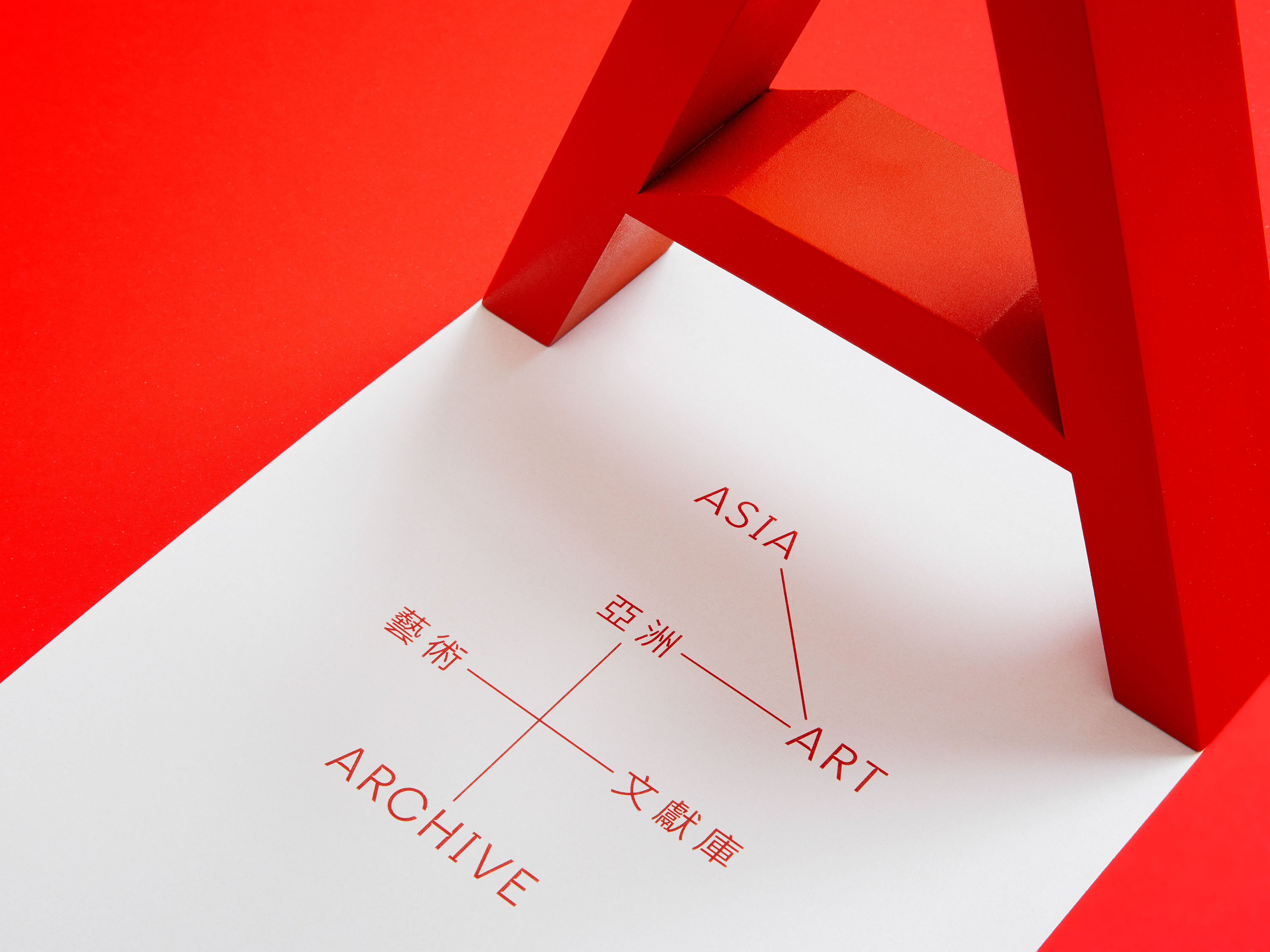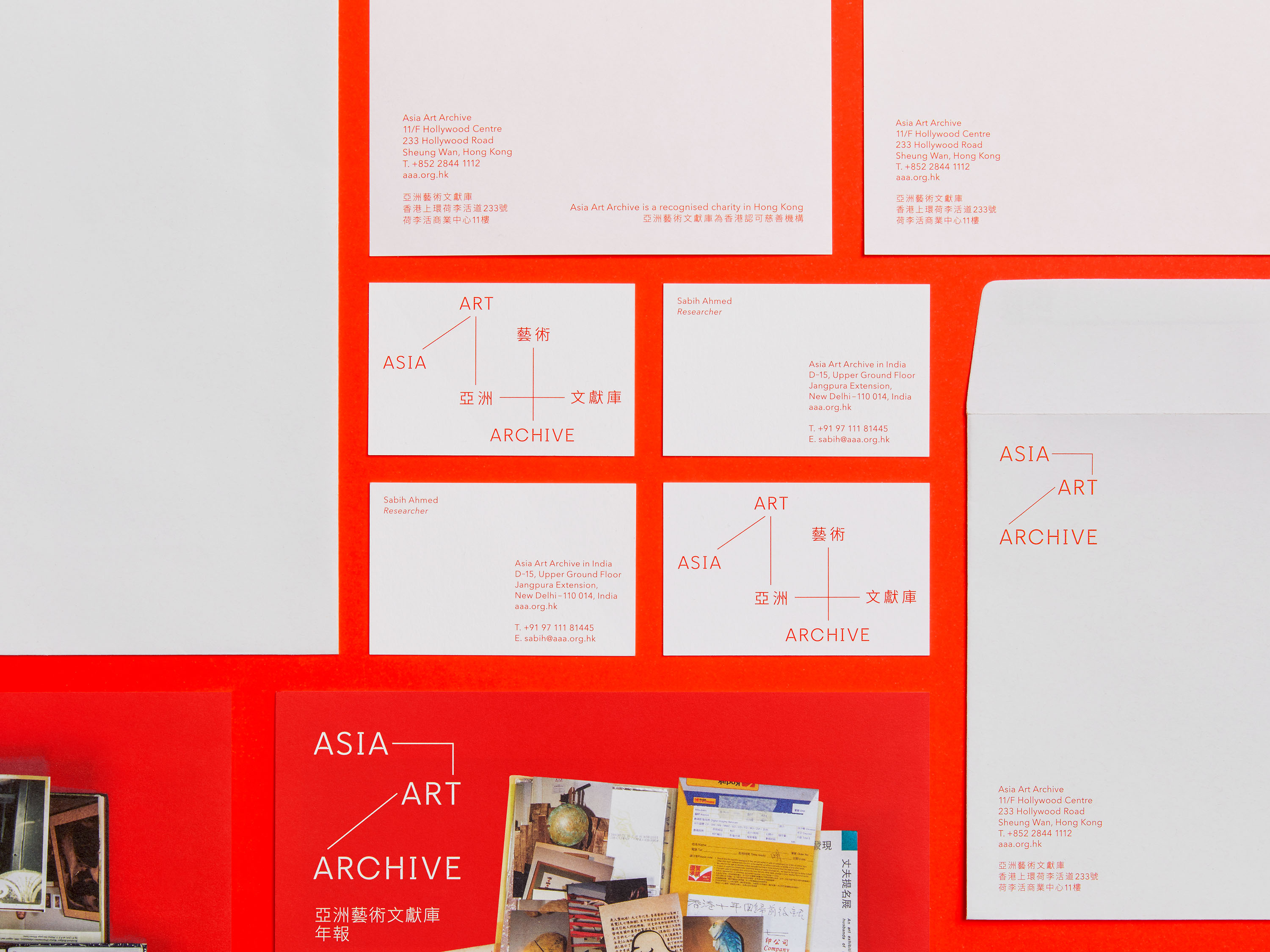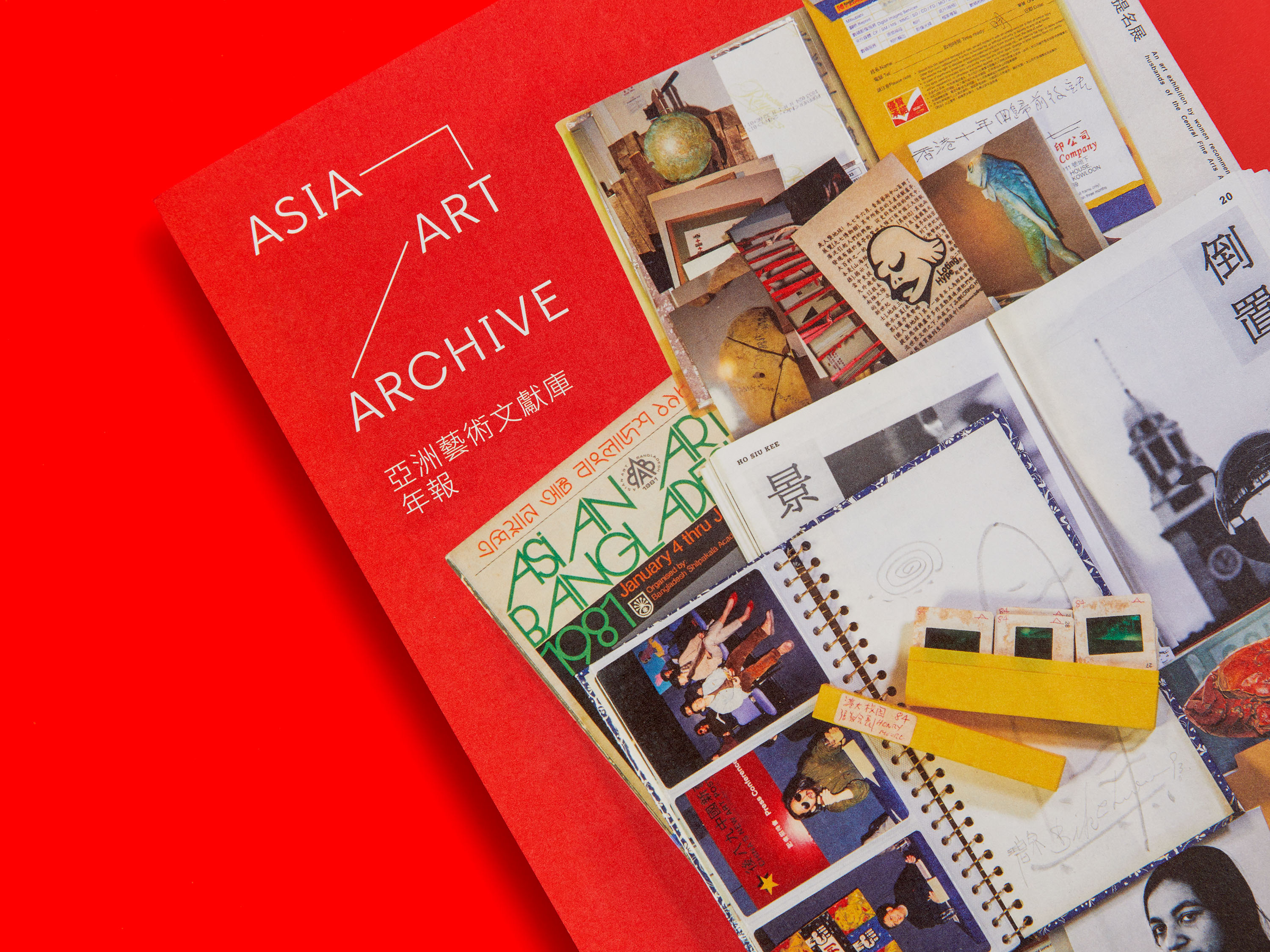
Asia Art Archive Regular
Dispossession of the hand in favour of a trajectory for the eye.
Asia Art Archive Regular Uppercase
Asia Art Archive Regular Latin
Asia Art Archive Regular Numerals
Asia Art Archive Regular Punctuation, Symbols, Currency & Math
Asia Art Archive Display
Linguistic modality is a distinction between the forms in a system.
Asia Art Archive Display Uppercase
Asia Art Archive Display Latin
Asia Art Archive Display Numerals
Asia Art Archive Display Punctuation, Symbols, Currency & Math
This bespoke typeface was developed as part of the visual identity for Asia Art Archive, an independent, non-profit institution dedicated to documenting contemporary art in Asia. Its design was informed by research into archival records and the functional typography used within the process of record-keeping and cataloguing.
Many of the typefaces well-suited to this context feature ink traps to maintain clarity at small point sizes, and this feature was exaggerated within the design of the Asia Art Archive Regular typeface to create a more decorative effect. The sharp, incised shapes of these ink traps can also be seen as a reversal of the calligraphic line endings found in the character forms of a number of Asian alphabets. An ink trap-free Display style of the typeface was also developed, for use in contexts where a less decorative effect is desired.